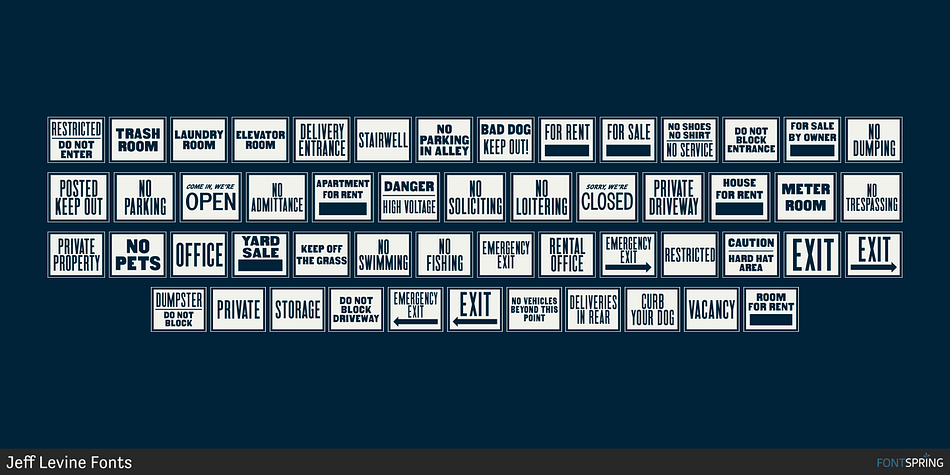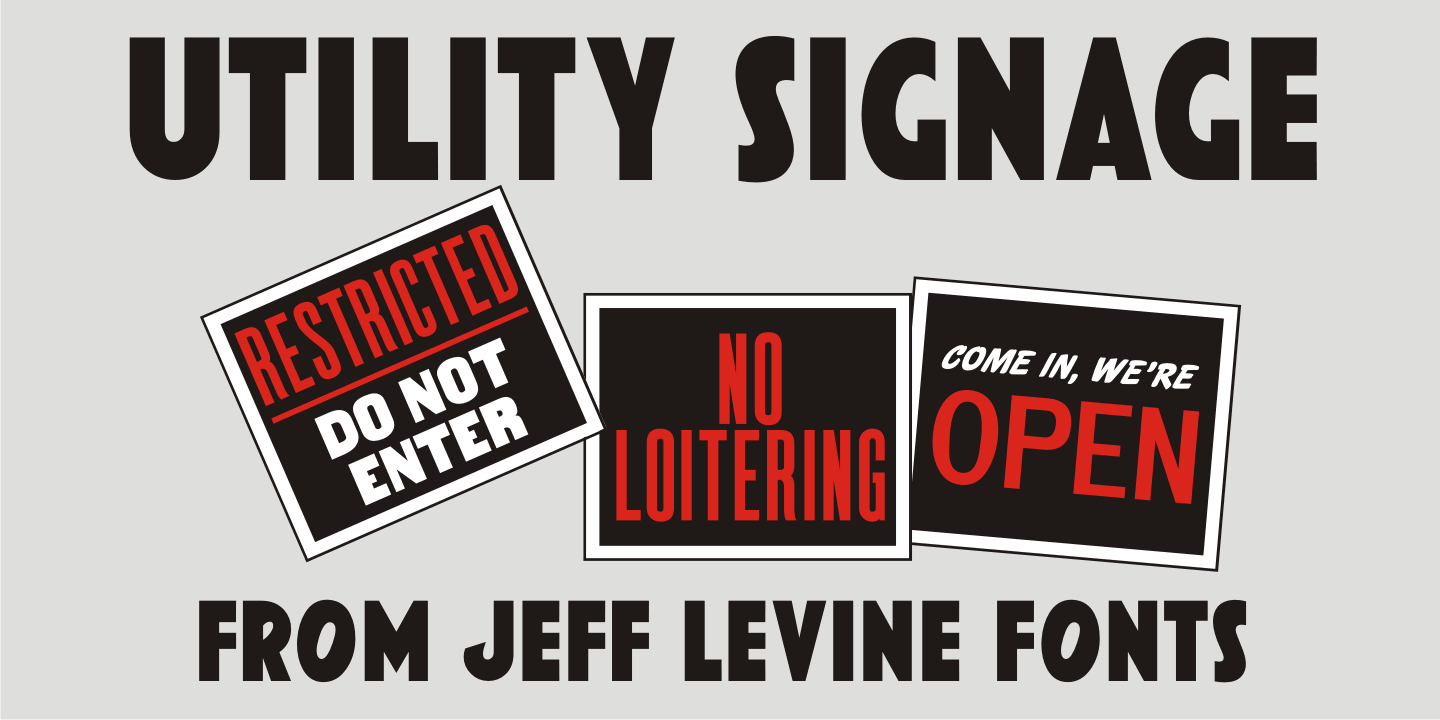
Utility Signage JNL Regular
Utility Signage JNL is a dingbat font published by Jeff Levine Fonts.
Utlity Signage JNL is a collection of fifty-two various “all purpose signs” we’ve all seen in hardware and variety stores is perfect for spot illustrations in ad copy, making one-off images for props in a stage play or production or even for novelty jokes or gags.